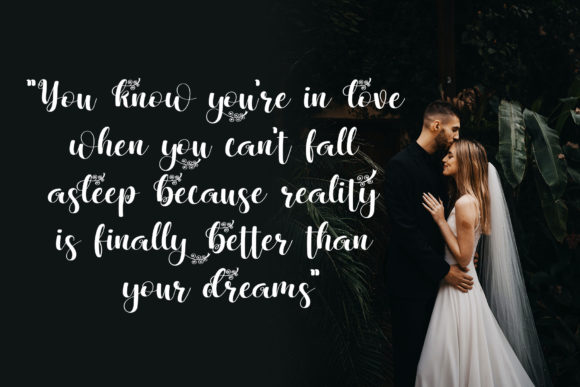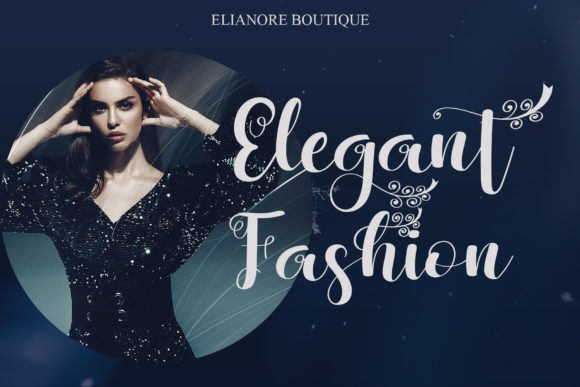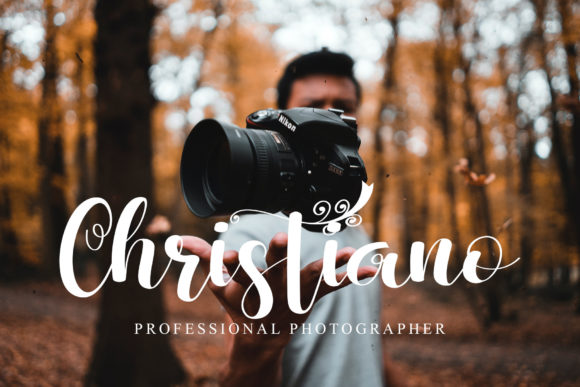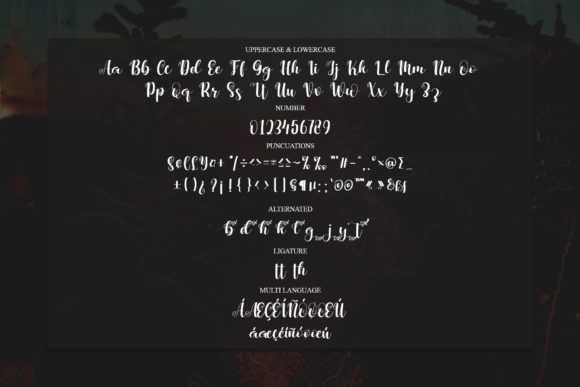
Introducing Fake Smile Font: Elevate Your Designs with Elegance and Whimsy
Are you a designer or crafter looking for a font that can add a touch of elegance and playfulness to your projects? Look no further than the Fake Smile Font. This beautiful, handwritten font is designed to bring a loving touch to your craft or design project, making it perfect for a wide range of applications.
What is Fake Smile Font?
Fake Smile Font is an elegant handwritten font that features additional whimsical swishes, giving it a unique and charming personality. The font is carefully crafted to provide a warm and inviting feel, making it ideal for designers and crafters who want to add a personal touch to their work.
Key Features of Fake Smile Font
- Elegant Handwritten Style: The Fake Smile Font boasts a beautiful, handwritten style that is both sophisticated and approachable.
- Whimsical Swishes: The font includes additional whimsical swishes that can be used to add a touch of playfulness and personality to your designs.
- PUA Encoded: The Fake Smile Font is PUA (Private Use Area) encoded, which means that you can access all of the glyphs and swashes with ease. This makes it simple to use the font in your designs and projects.
Benefits of Using Fake Smile Font
There are many benefits to using the Fake Smile Font in your designs and projects. Here are just a few:
- Adds a Personal Touch: The Fake Smile Font can be used to add a personal touch to your designs and projects, making them more unique and engaging.
- Versatile: The font is versatile and can be used in a wide range of applications, from crafting and scrapbooking to graphic design and digital art.
Tips and Tricks for Getting the Most Out of Fake Smile Font
Here are a few tips and tricks for getting the most out of the Fake Smile Font:
- Experiment with Different Sizes and Colors: Experiment with different sizes and colors to find the perfect combination for your design.
- Combine with Other Fonts: Combine the Fake Smile Font with other fonts to create a unique and interesting look.
- Use the Swashes Creatively: Use the swashes creatively to add a touch of personality to your design.
The Fake Smile Font is a beautiful and versatile font that can add a touch of elegance and whimsy to your designs and projects. With its elegant handwritten style, whimsical swishes, and PUA encoding, it’s the perfect choice for designers and crafters who want to add a personal touch to their work. Whether you’re creating a craft project, designing a logo, or working on a digital art piece, the Fake Smile Font is sure to become a favorite.